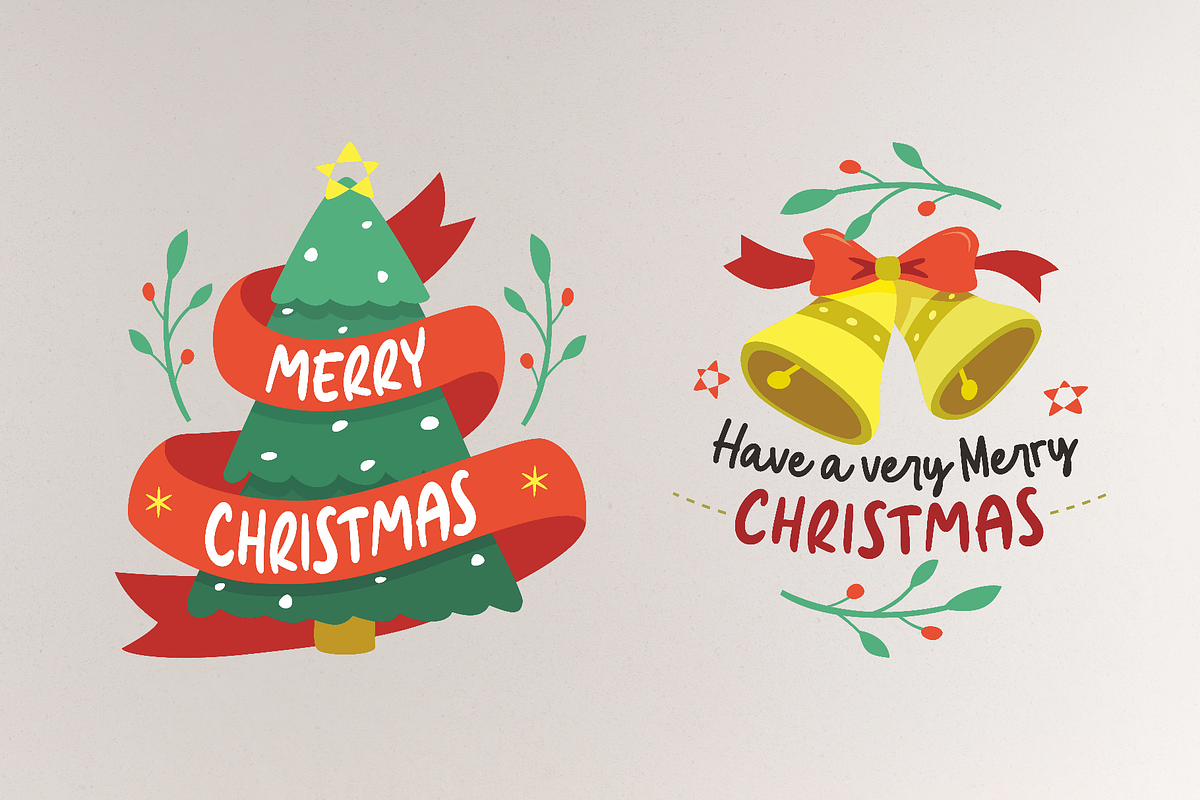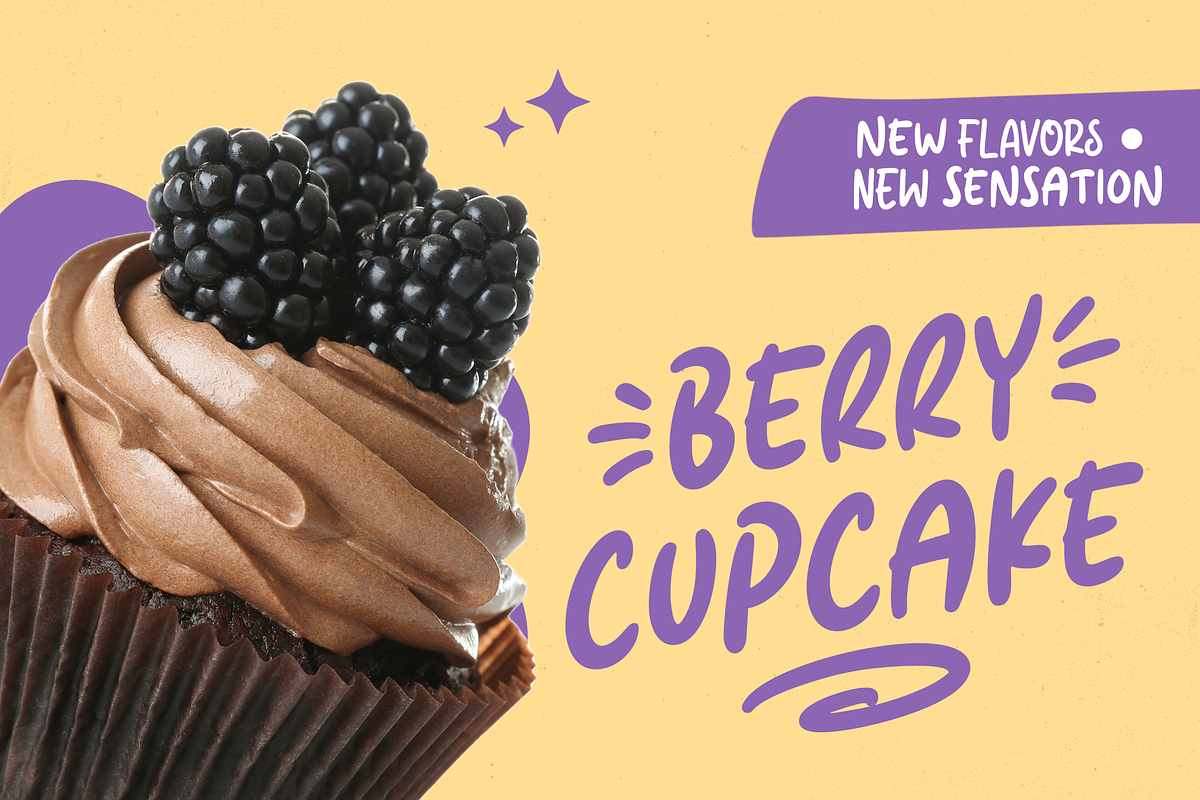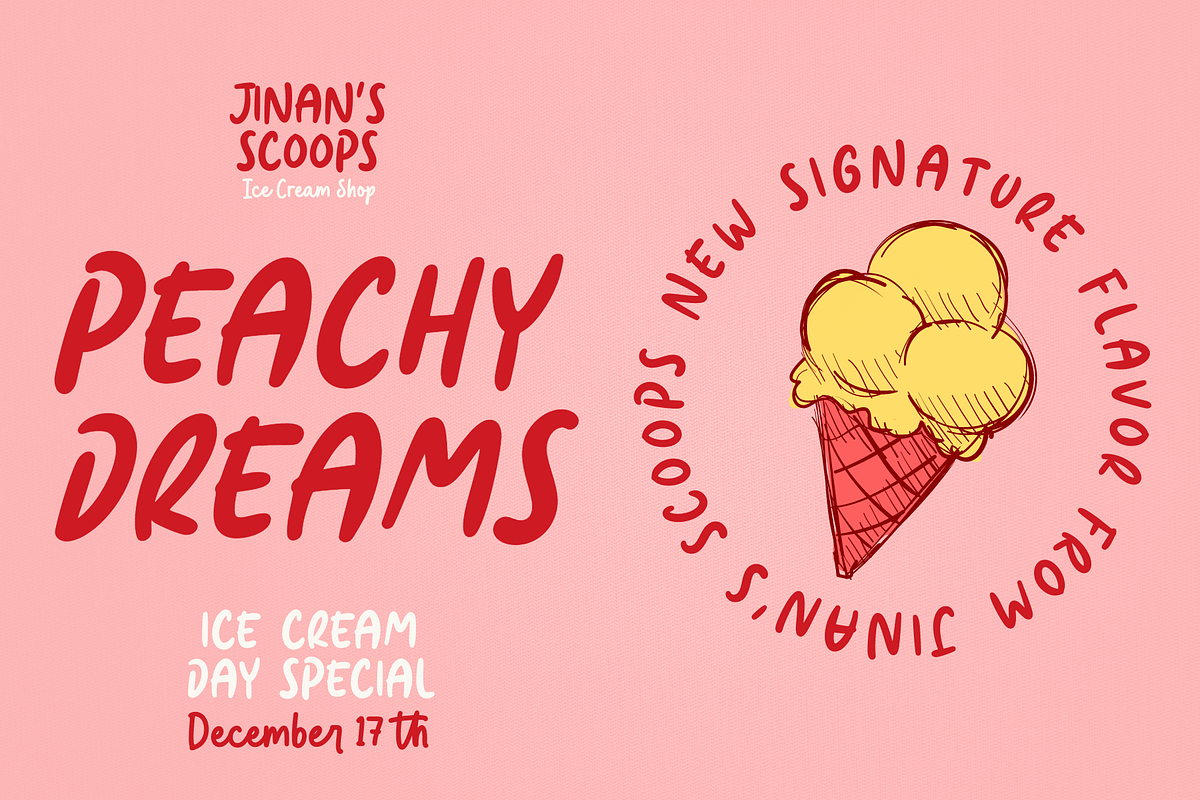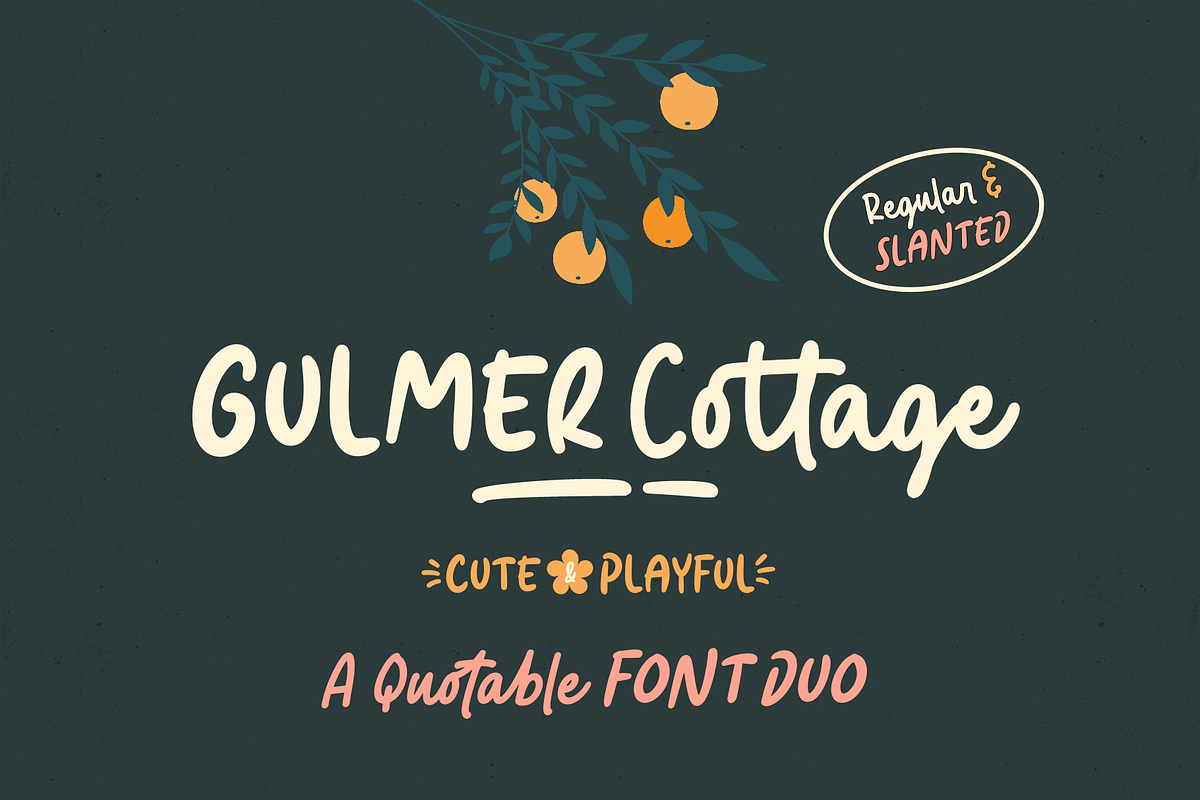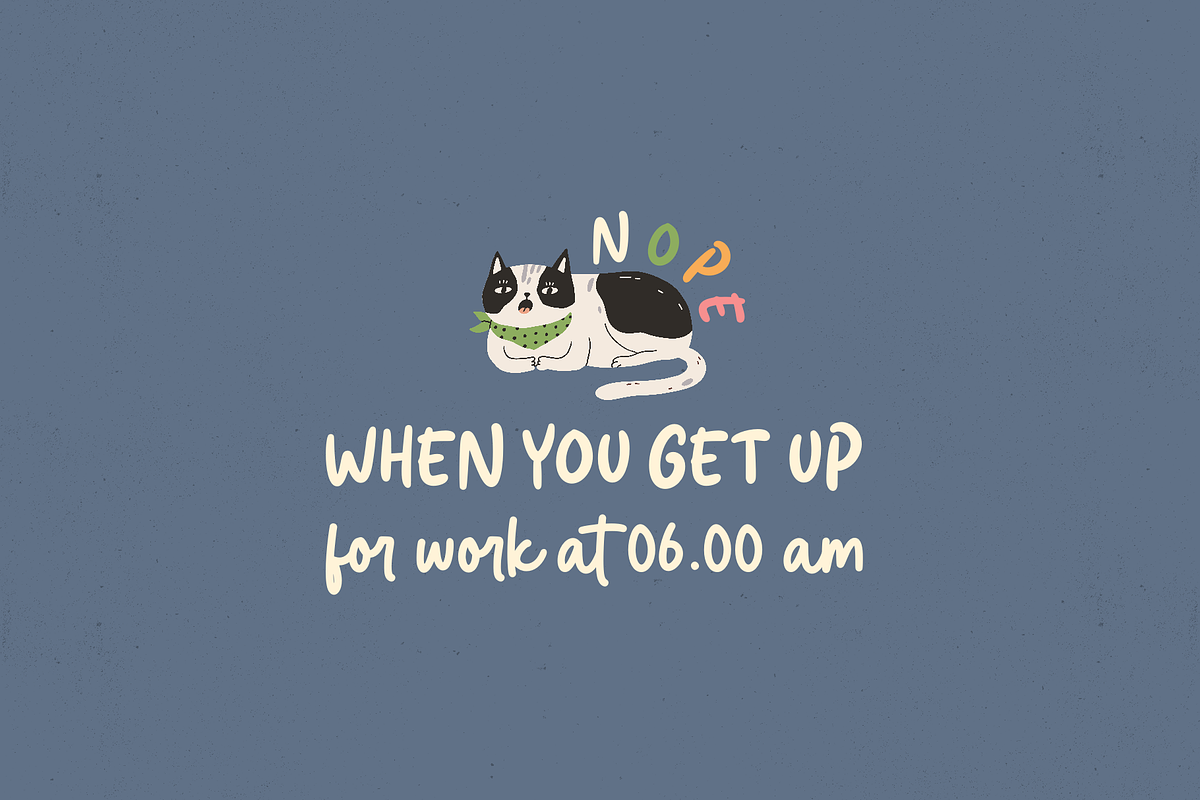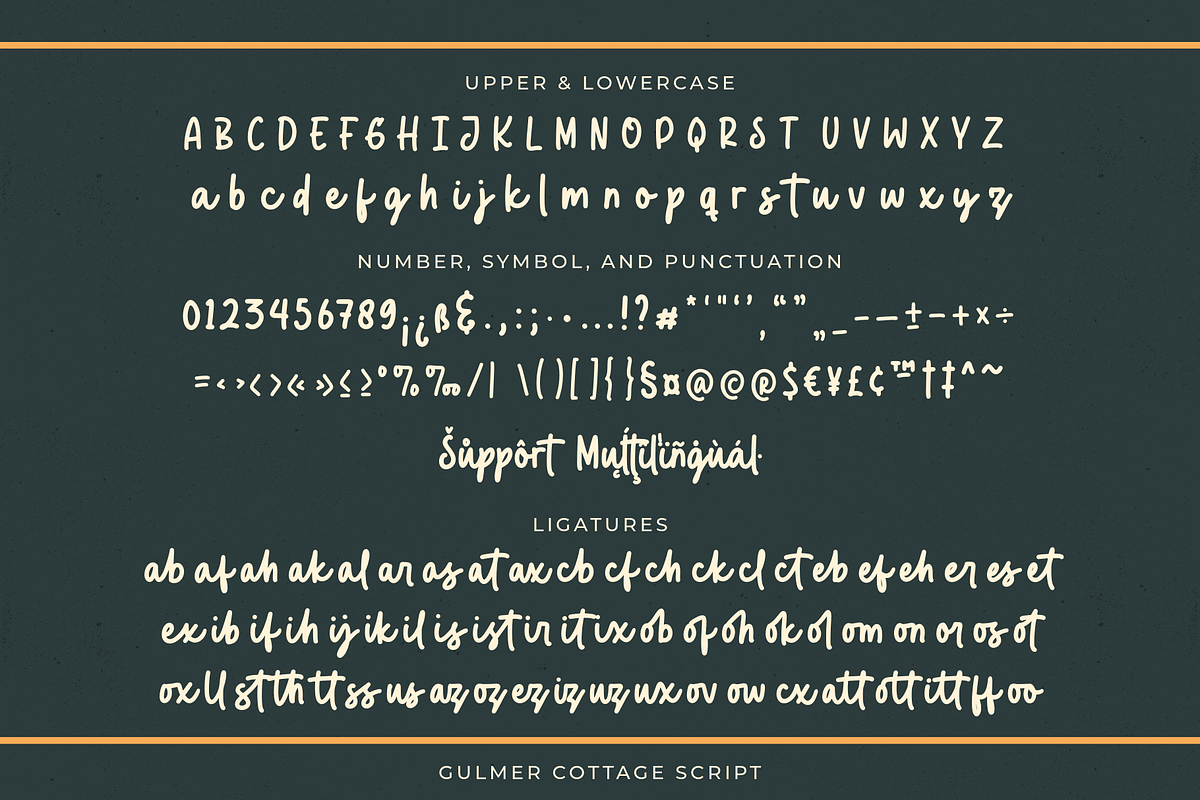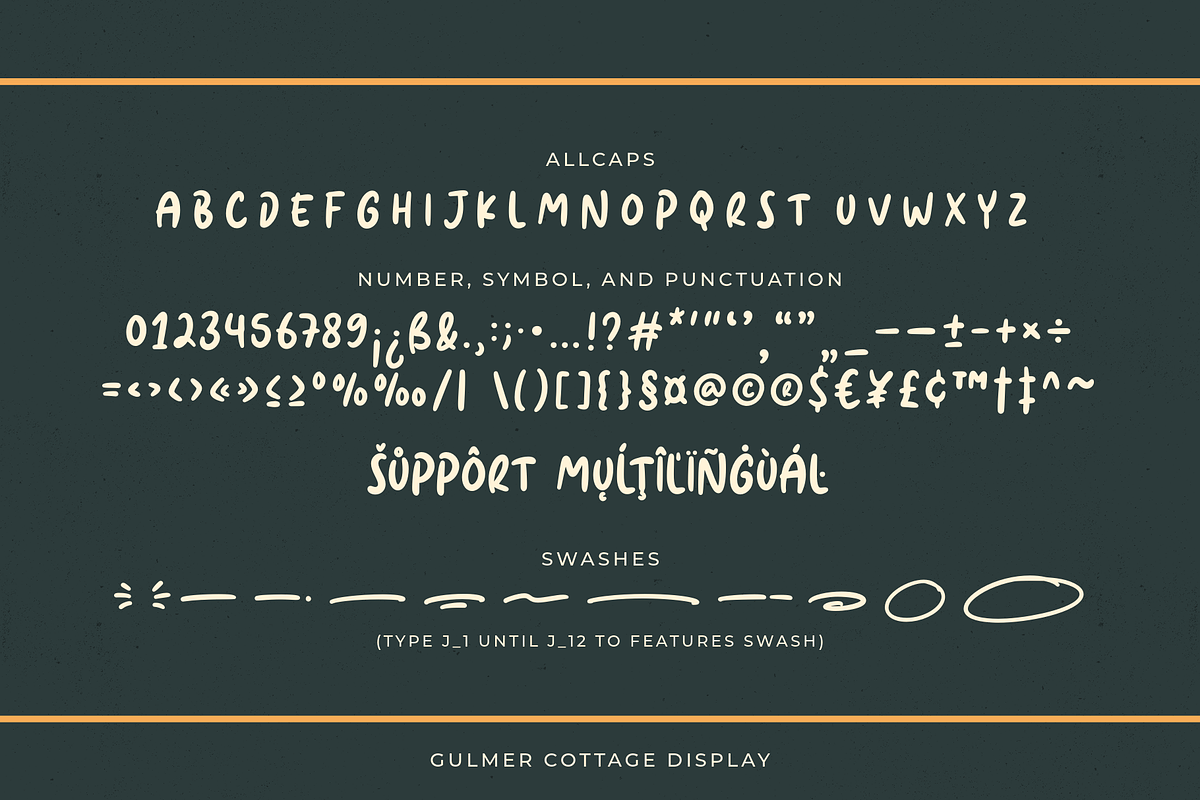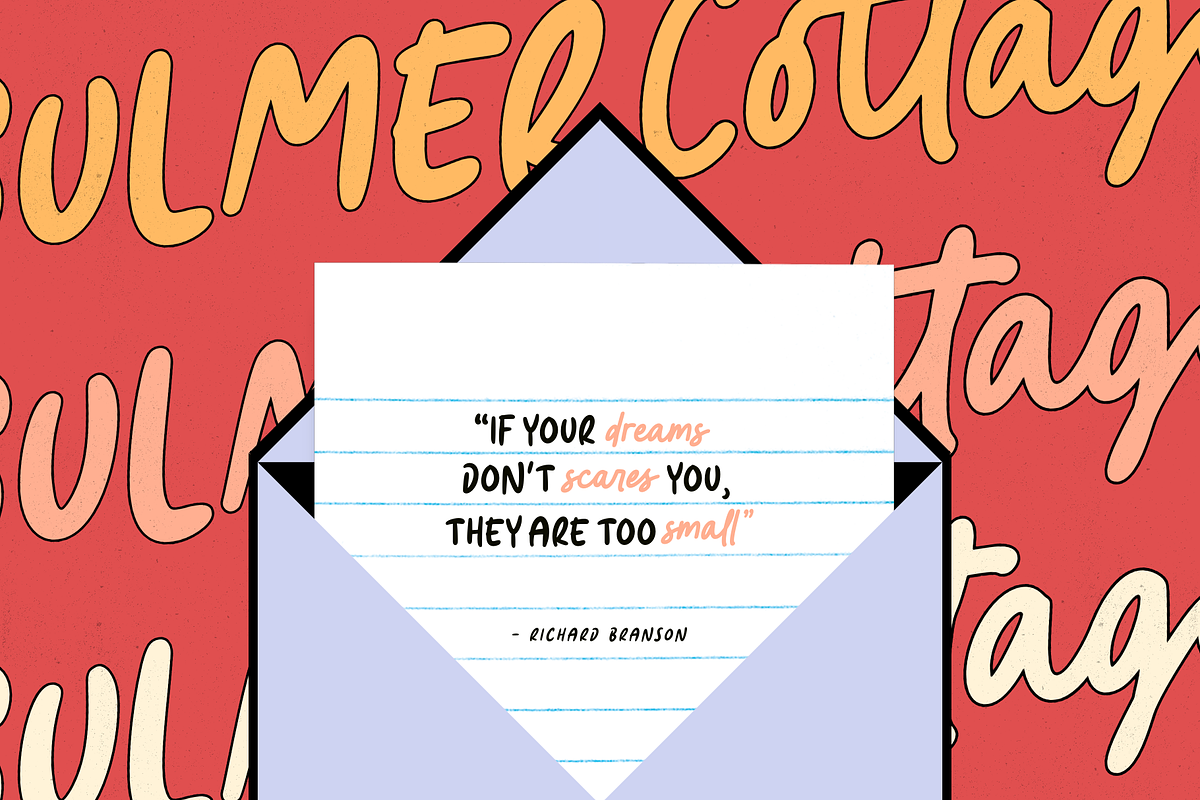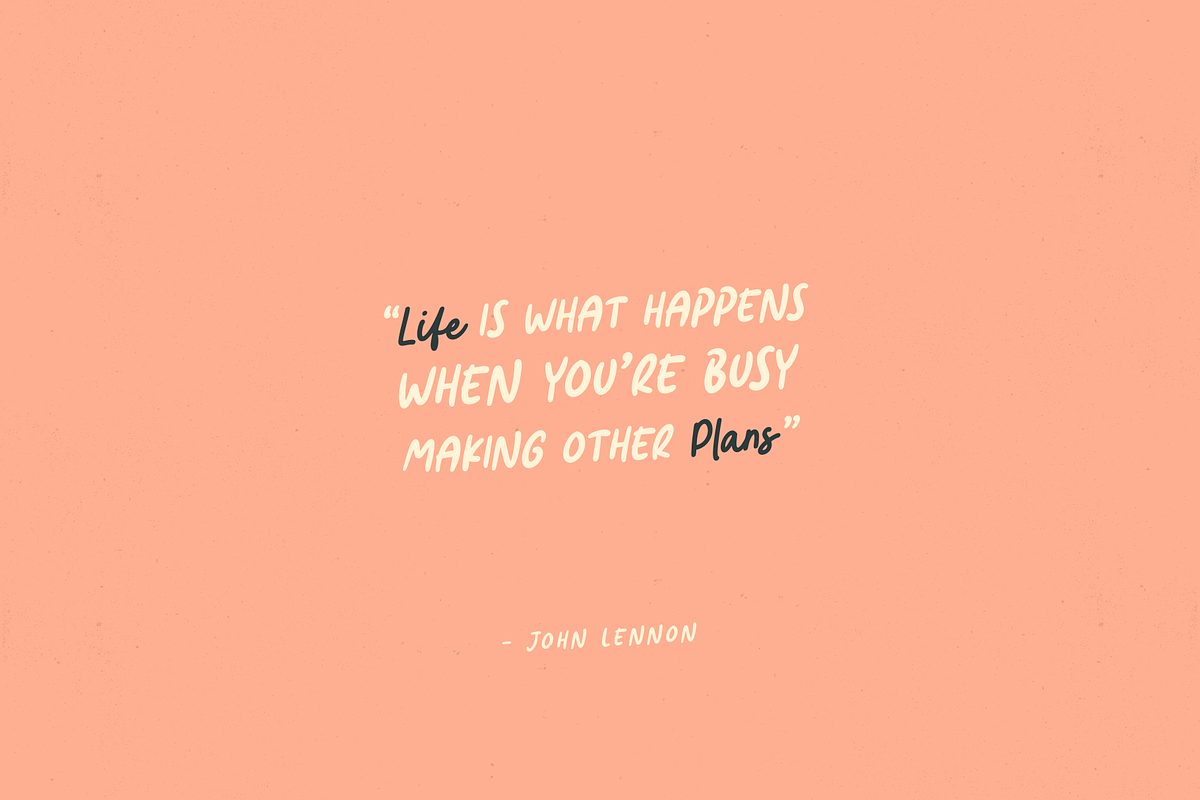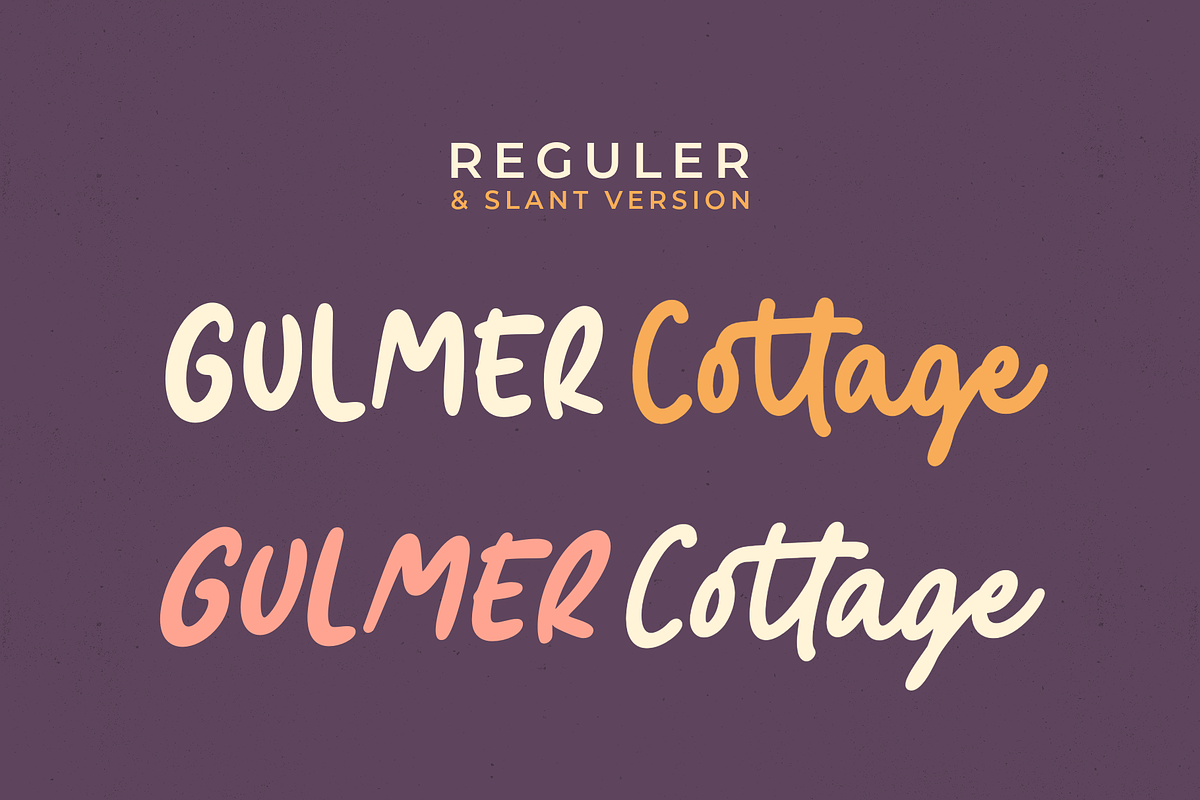
Gulmer Cottage Font Duo
Gulmer Cottage Font Duo embodies the essence of charm and whimsy, designed to infuse your creations with a delightful touch. This font duo features both a regular and slanted version, offering versatility for a myriad of designs. The script version boasts engaging ligatures while the display version is adorned with playful swashes, allowing for endless creative possibilities.
Perfectly suited for quote designs, celebrations like Christmas and birthdays, heartfelt valentines, as well as branding endeavors and product packaging, Gulmer Cottage Font Duo radiates love, cute, and joy. Its multi-language support ensures its usability across diverse cultural landscapes, while its inherent cuteness and fun-loving nature elevate any project it graces. Infuse your designs with a dash of affectionate personality and spirited vibes using this endearing font duo."
- A set of uppercase and lowercase glyphs, Allcaps (display version)
- Number, symbol, and punctuation
- Ligatures (script version)
- Swashes (display version)
- Slanted Version